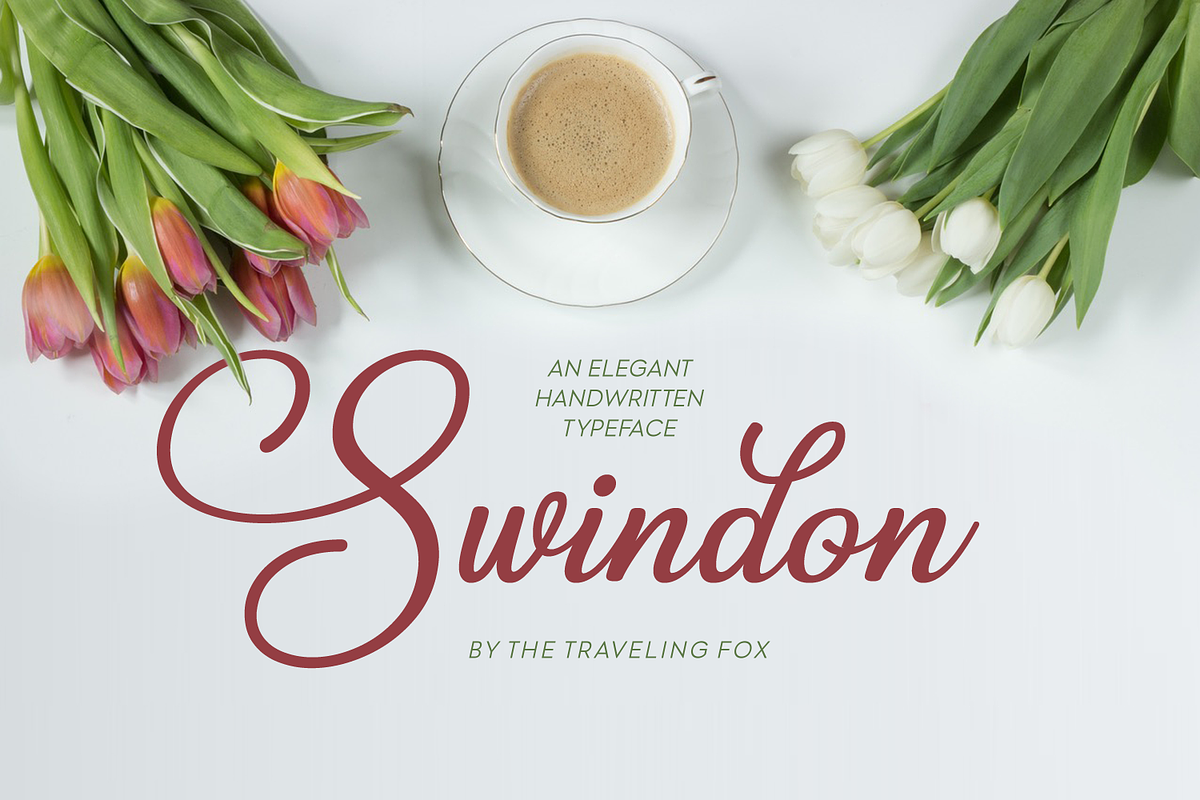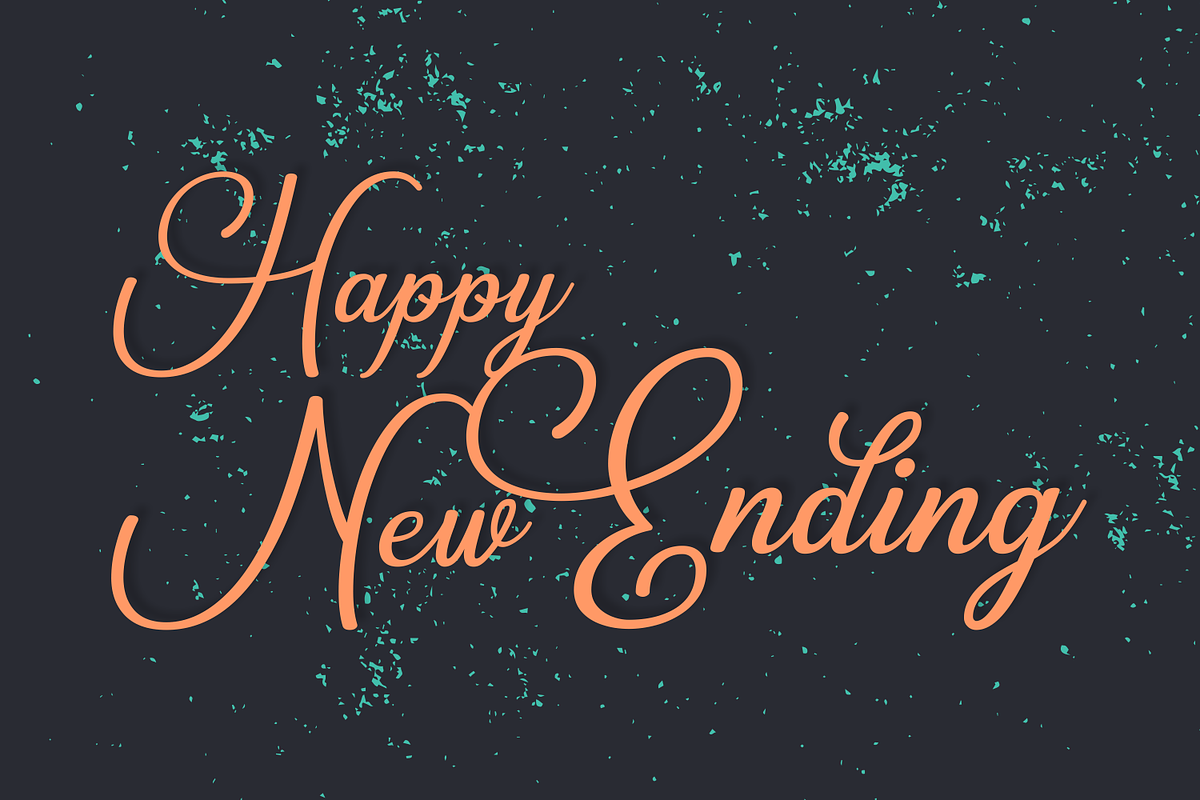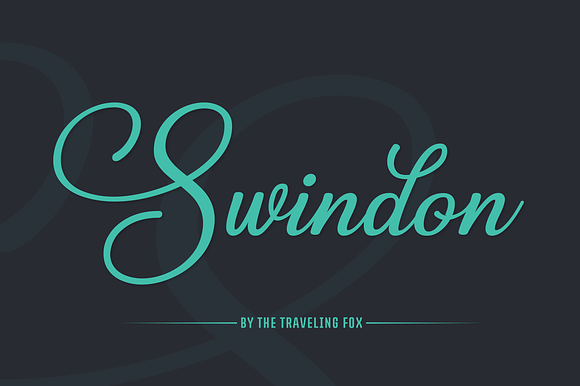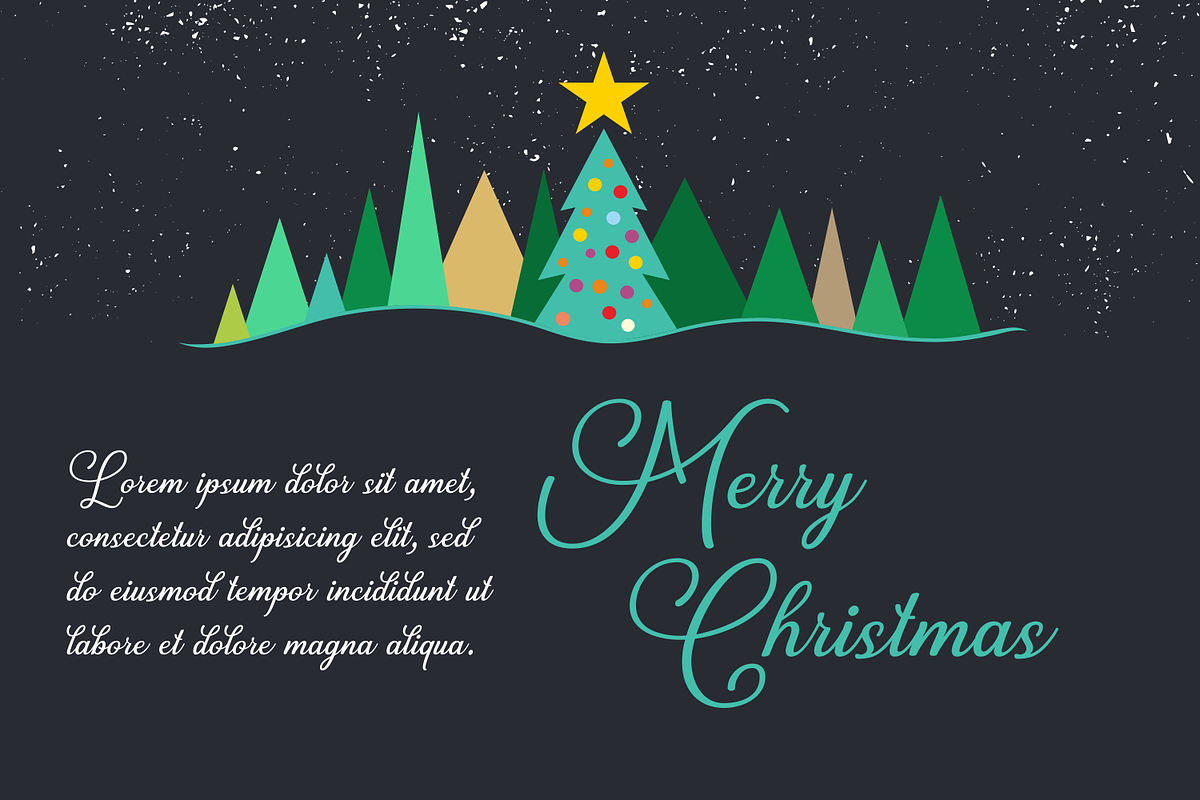
Swindon Handwritten Font
It's very pleasant on the eyes, great for die-cutting on Silhouette & Cricut and is perfect for both print & web use.
- Swindon is a bold, playful type that comes with stunning rounded letters.
Swindon Handwritten Font by The Traveling Fox fits naturally into Branding, posters, packaging, typography.